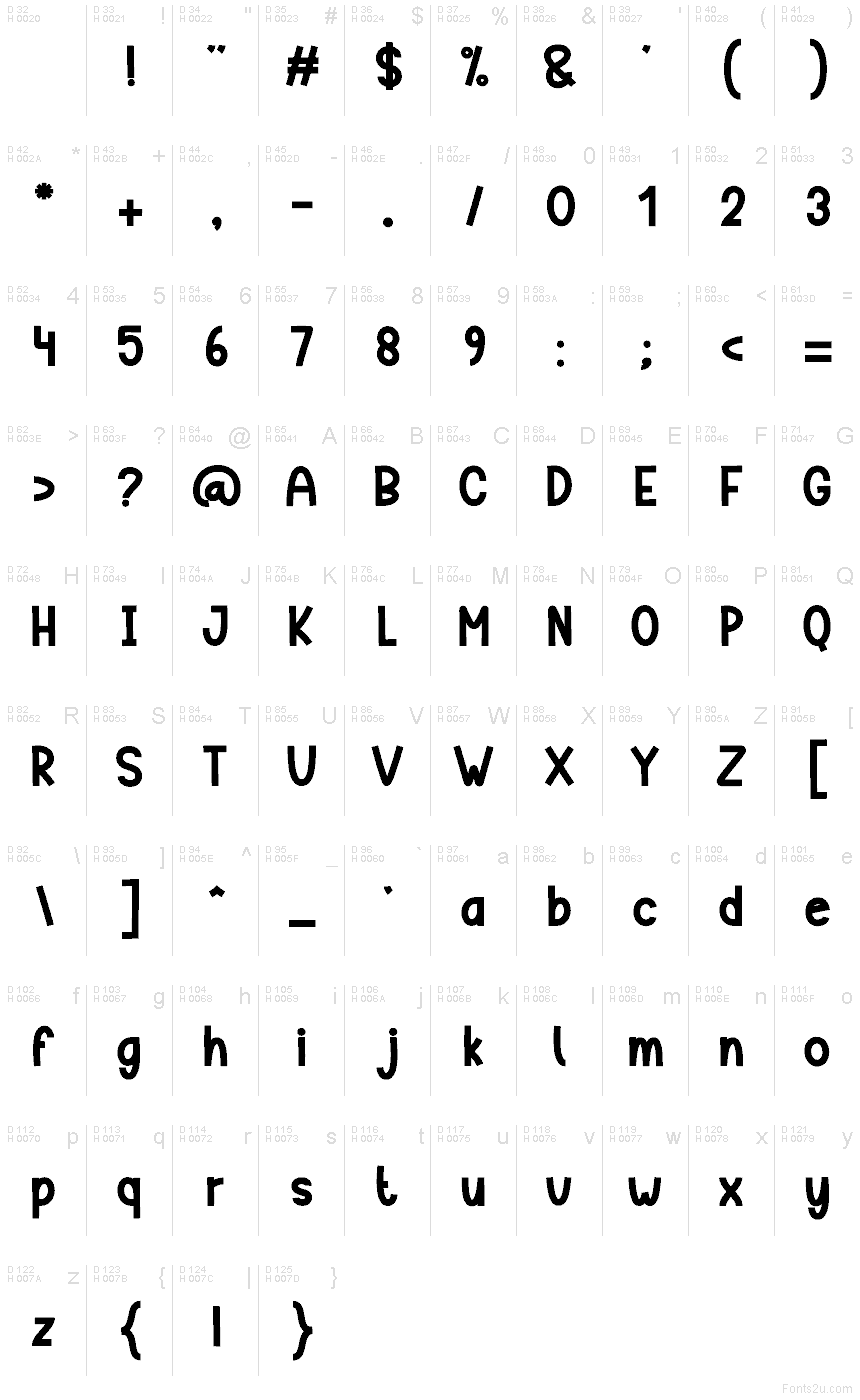
Snowy Beauty
Snowy Beauty font is a display design by Andi Moz, with smooth rounded edges and a pleasant contemporary appeal. The general style expresses the beauty of the winter season with shapes similar to softly falling snow. Perfect for designs that need a friendly, casual mood.
Designs using this free display font can be in Christmas product packaging, advertising brochures, branding projects, blog headlines, or book titles. Its fluent contour also makes it suitable for social media content such as posts or stories.